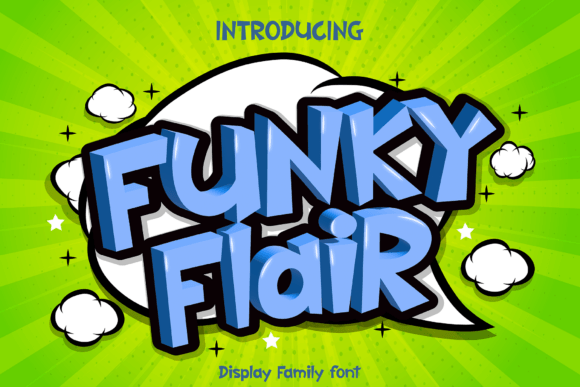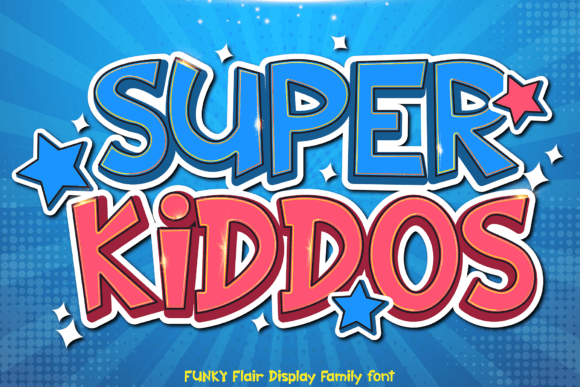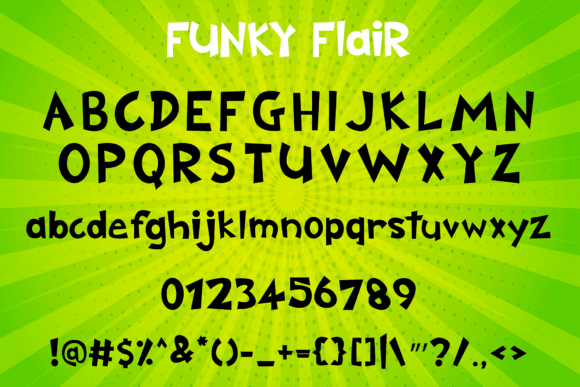
Introduction to Funky Flair Font
FUNKY FLAIR is a stylish, fun, and playful display font with a decorative touch.
Unleash your creative flair with Funky Flair – a vibrant, pop-art inspired font that embodies playfulness and authenticity It’s the perfect choice for eye-catching designs such as blog posts, logos, branding, ads, invitations, greeting cards, planners, photo albums, decorations, and more.